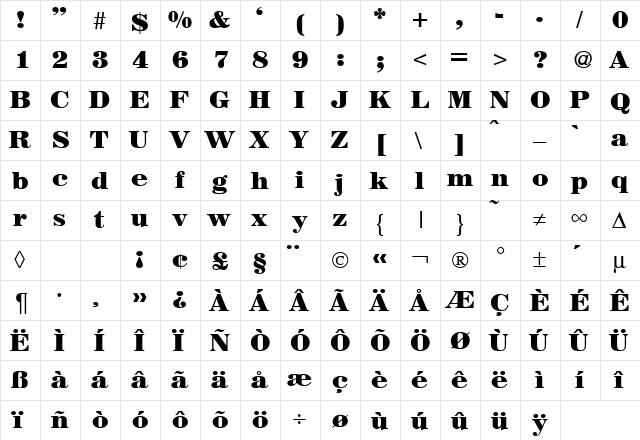
MagazineHeavy Regular
Design Context for MagazineHeavy Typeface
MagazineHeavy offers clean, dependable letterforms without strong stylistic allegiance, making it a practical choice for designers who need flexibility.